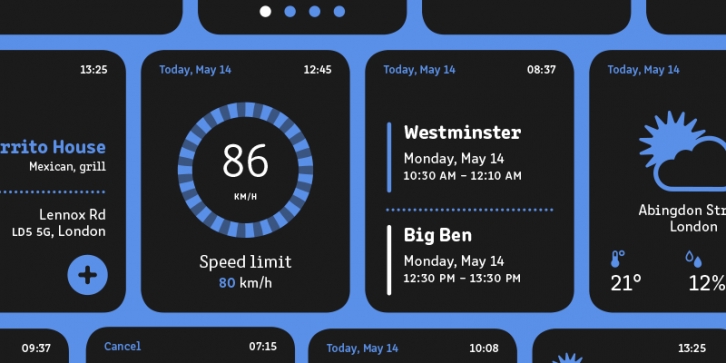
Clone is a quasi-monospaced typeface that gives a nod to the quirkiness of engineered fonts without impairing reading experience. It takes inspiration from coding, technology and architecture.